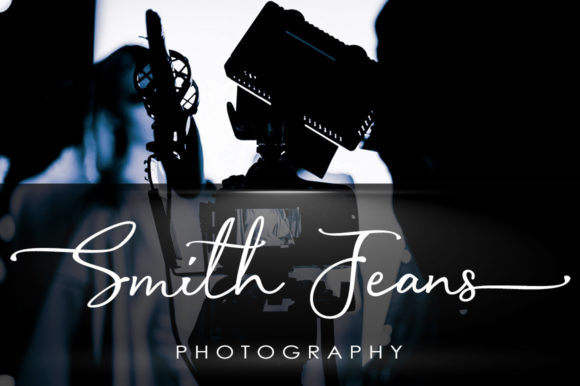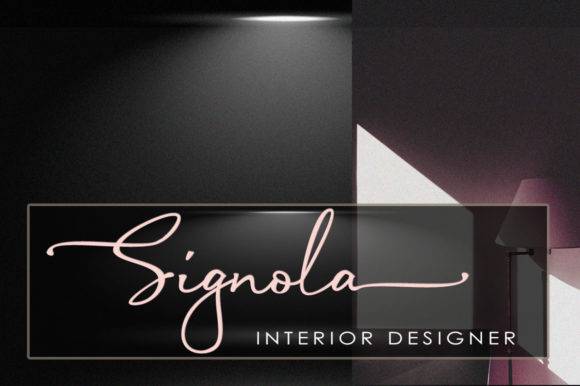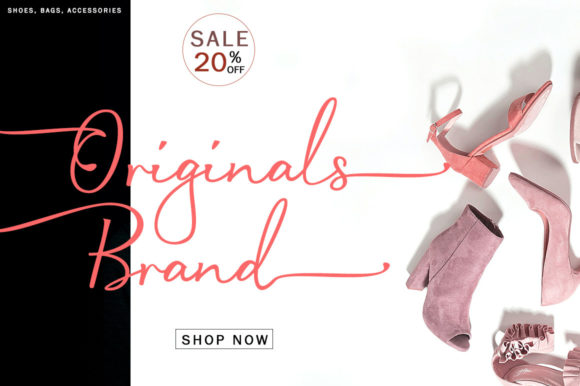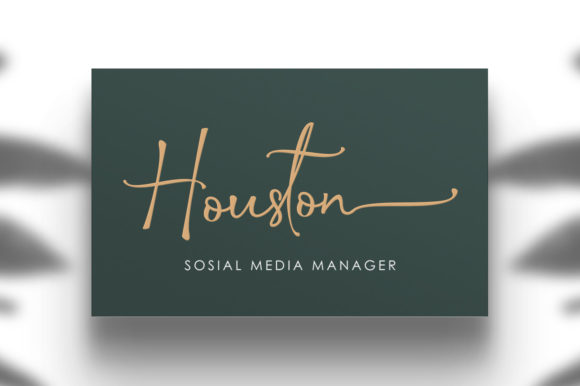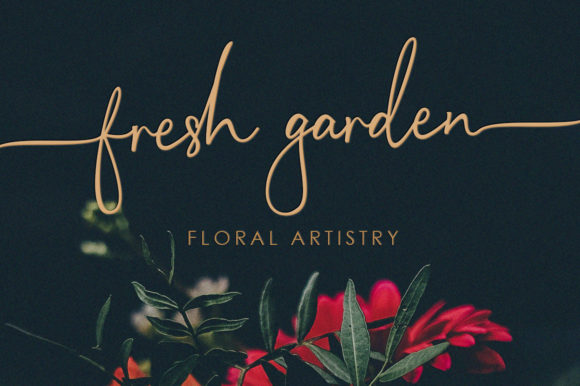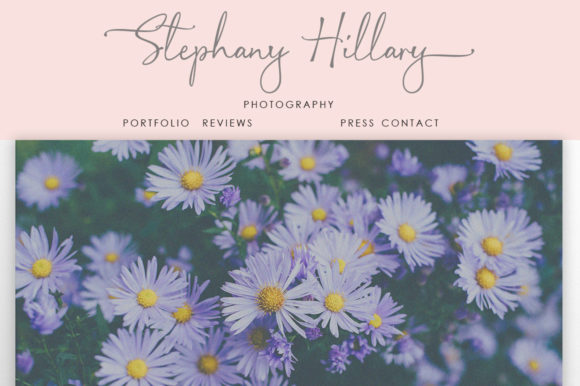
The Perfect Blend of Elegance and Charm
Do you remember the moment when you stumbled upon the perfect font for your wedding invitations? The moment when the words on the page came alive, and you knew exactly what you wanted your special day to look like? For many designers, this moment is what drives them to create something truly magical.
That’s exactly what the Alisha Signature Font is all about – capturing the essence of elegance and charm in every design. This beautifully crafted font is perfect for wedding invitations, thank you cards, quotes, and any other project that requires a customized touch. With its PUA encoding, you can access all the glyphs and swashes with ease, making it a valuable addition to any designer’s toolkit.
Alisha Signature Font Key Features
- Unique Characteristics: The Alisha Signature Font features a unique, elegant script style with connected strokes, making it ideal for signatures, invitations, and other creative applications.
Alisha Signature Font Review
Overall, I think the Alisha Signature Font has some great qualities that make it a solid choice for designers looking for a stylish and elegant font. ✨
- Unique and creative style that sets it apart from other fonts.
- Highly legible, even at smaller font sizes.
- Packaged with a variety of useful font weights and styles.
One of the standout features of the Alisha Signature Font is its versatility. It’s perfect for designing business cards, logos, and other branding materials where you want to convey a sense of sophistication and elegance.
- May not be suitable for projects where you need a more bold or dramatic font.
- Some users have reported issues with font compatibility on certain devices.
Overall, I think the Alisha Signature Font is a great addition to any designer’s toolkit. While it may have some limitations, its unique style and high legibility make it a solid choice for a wide range of design projects.
Tips for Getting the Most Out of Alisha Signature Font
Use Alisha Signature Font for personal branding, such as logos, business cards, and letterheads.
Pair the font with a bold, modern color scheme to create a cohesive look.
Experiment with different font sizes and styles to add visual interest.
Alisha Signature Font is ideal for:
Personal branding and identity design
Creative and modern business cards
Unique and eye-catching letterheads
Social media graphics and promotions
Alternatives to Alisha Signature Font
Ostrich Sans is a modern sans-serif font ideal for logos, branding, and digital products. It has a clean and minimalist aesthetic that works well in a variety of applications. When to use: Digital products, logos, branding, and websites. Comparison to Alisha Signature Font: Ostrich Sans has a more geometric and modern feel compared to the cursive and elegant style of Alisha Signature Font.
Great Vibes is a beautiful script font perfect for adding a touch of elegance and sophistication to your designs. It works well for invitations, quotes, and other creative projects. When to use: Invitations, quotes, and creative projects. Comparison to Alisha Signature Font: Great Vibes has a more flowing and artistic feel compared to the more formal and cursive style of Alisha Signature Font.